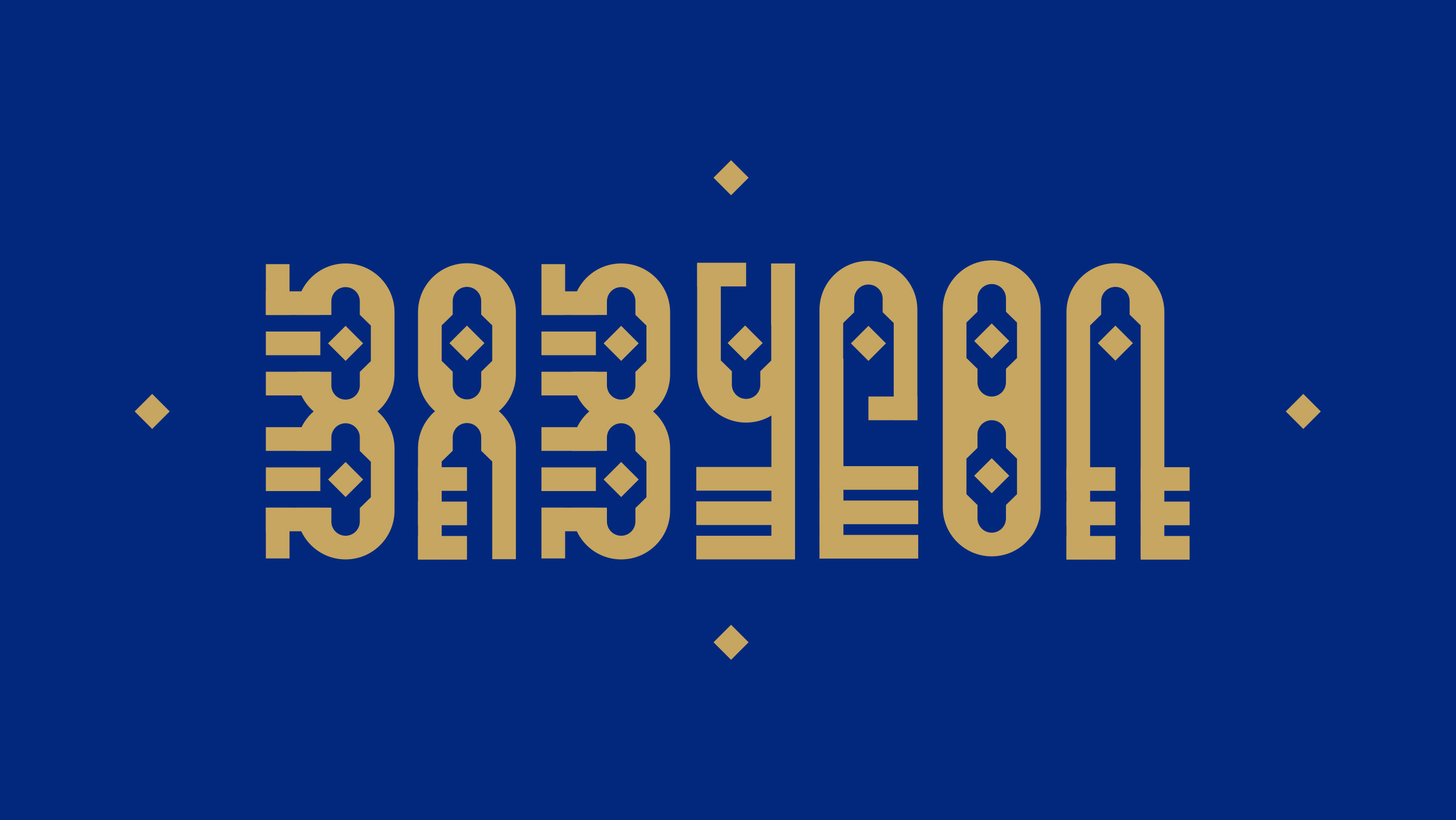
Babylon
I've always been fascinated by ancient civilizations. I designed lettering where some letters are keyholes and others are keys, blending Western typography with an Arabic touch. The letter widths are designed so the keys fit the locks.